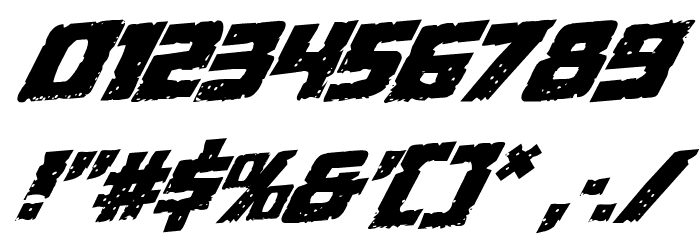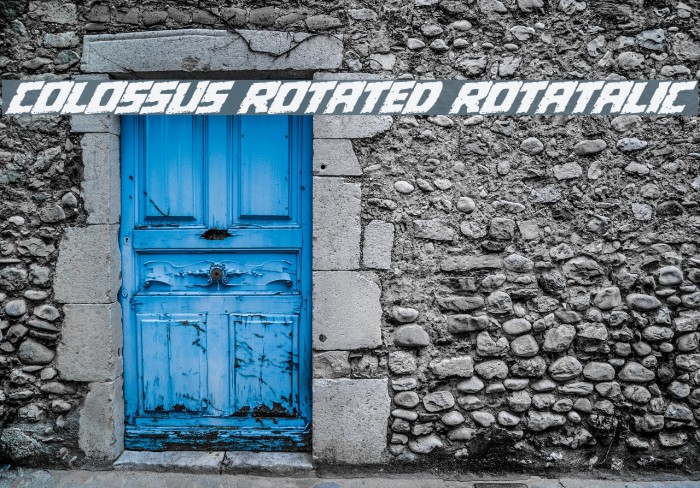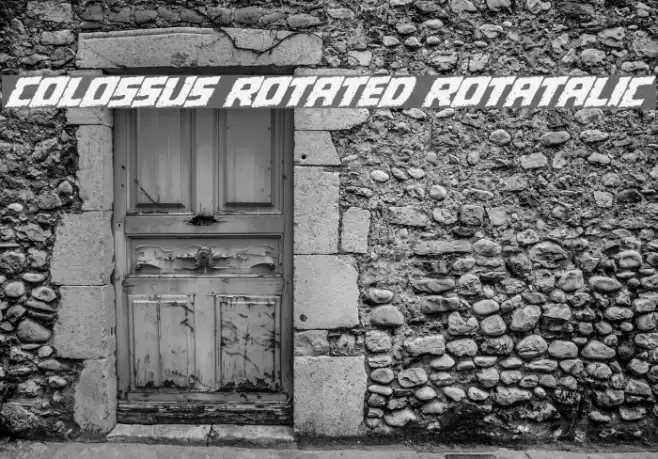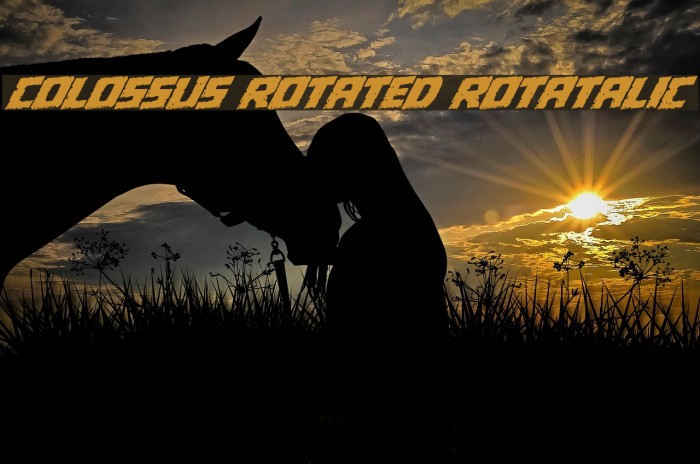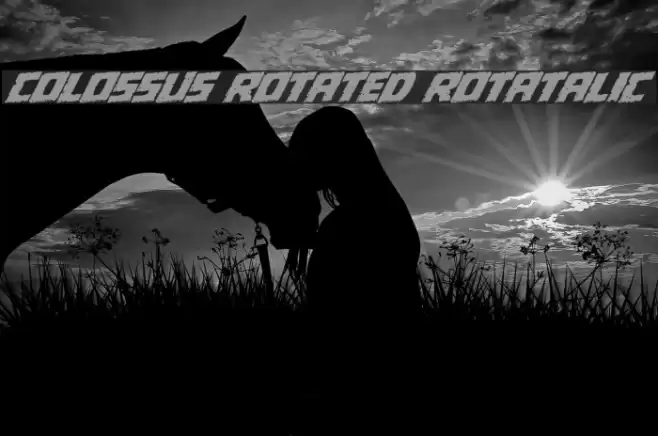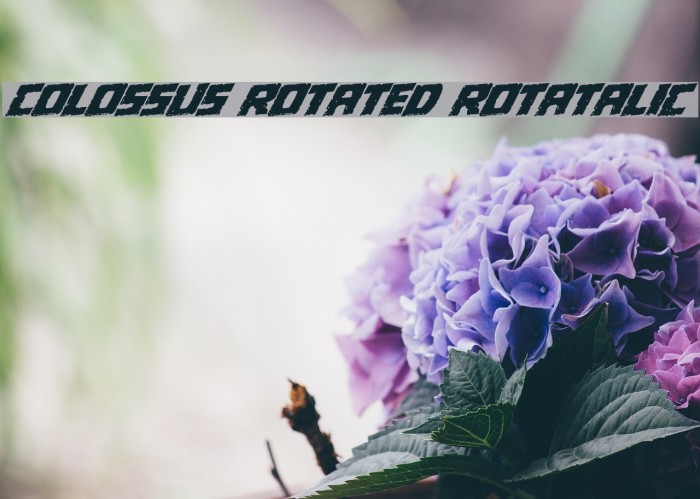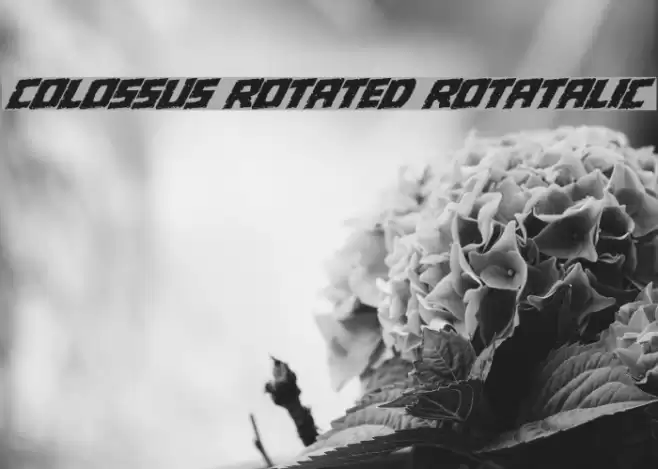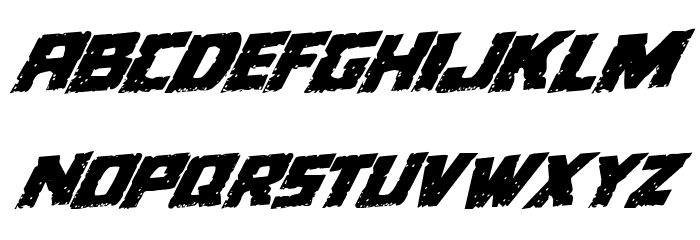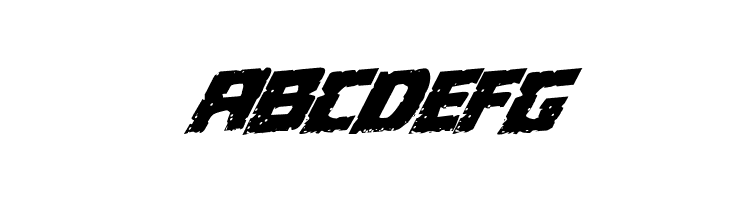
Colossus Rotated Rotatalic Font
✎ Distorted Eroded
Colossus Rotated Rotatalic Description
This font features a bold, dynamic style with a distressed texture that gives it a rugged and edgy appearance. The characters are italicized, adding a sense of motion and energy. The strokes are thick and uneven, contributing to a high contrast between the filled and unfilled areas. This font is particularly eye-catching and would stand out in any design. The uppercase and lowercase letters maintain a consistent style, with numbers and special characters following suit. The overall look is modern and impactful, making it suitable for projects that require a strong visual statement.
| Overall Style | Modern, Edgy |
| Proposed Projects | Ideal for posters, album covers, sports branding, and any project needing a bold, dynamic look. |